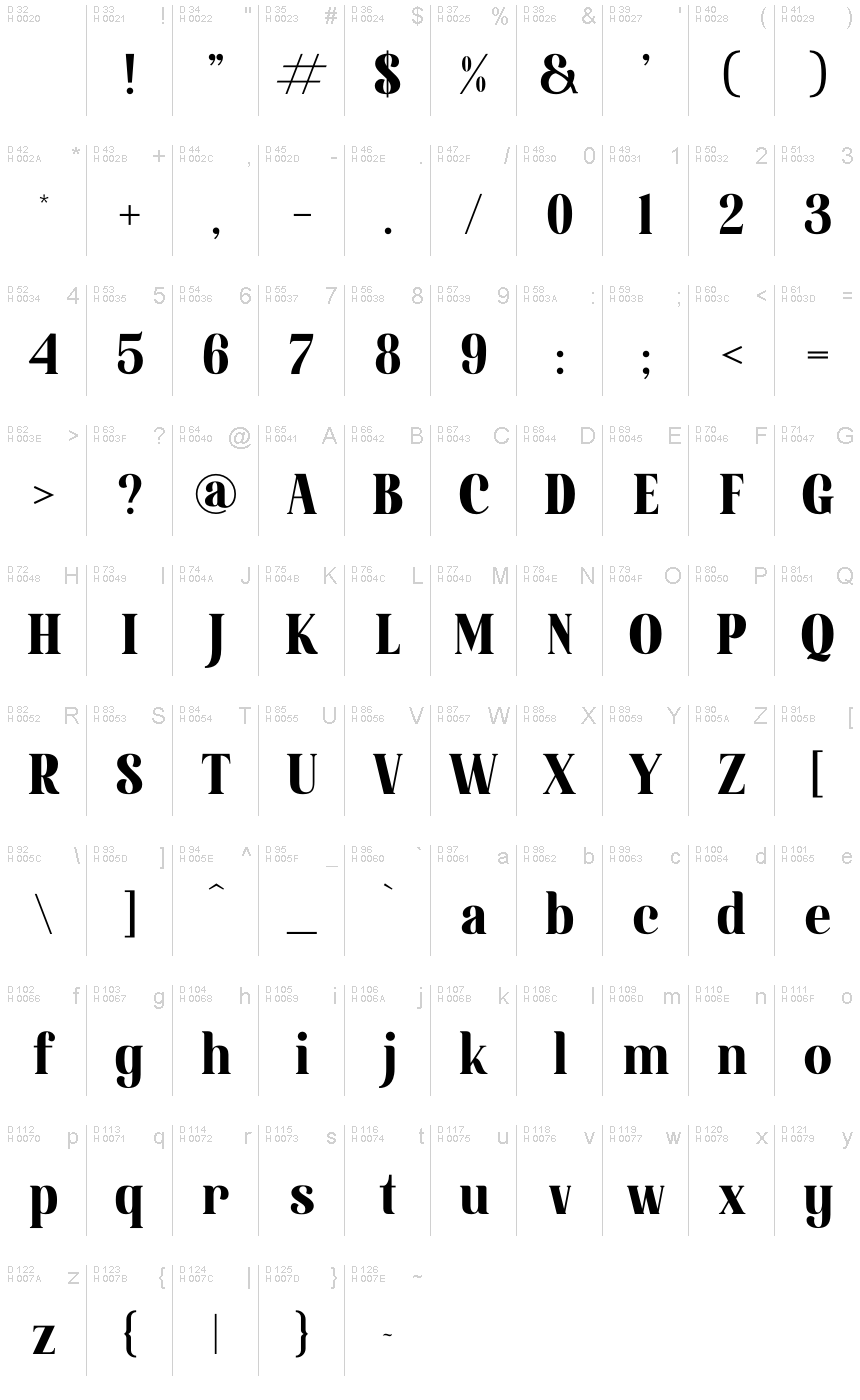
Quick Delight
Quick Delight, a serif font crafted by Storytype Studio, captivates with its bold, captivating curves and a touch of elegance. This condensed typeface exudes a sense of timeless sophistication, blending traditional serif elements with a modern flair. Its robust, distinct letterforms command attention, making it a standout choice for editorial designs, book covers, and high-impact branding initiatives.
The versatility of Quick Delight shines through in its ability to effortlessly adapt to a wide range of applications. Its condensed width lends itself well to space-constrained layouts, while the sturdy, legible serifs ensure excellent readability, making it a practical selection for both print and digital mediums. Whether crafting impactful headlines, curating captivating narratives, or elevating brand identities, Quick Delight by Storytype Studio offers a distinctive typographic solution to enhance the visual appeal of any project.